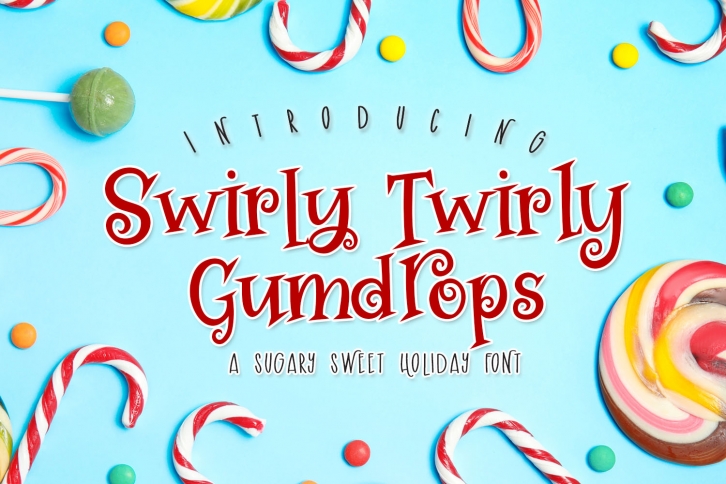
Swirly Twirly Gumdrops is a trendy and unique font with an authentic style. It was designed by A Little Smidge and it's a great choice for creative people who need such a font. It was released on September 17, 2019 and the file size is 2.38 MB. Swirly Twirly Gumdrops will add an organic vibe to any design idea!